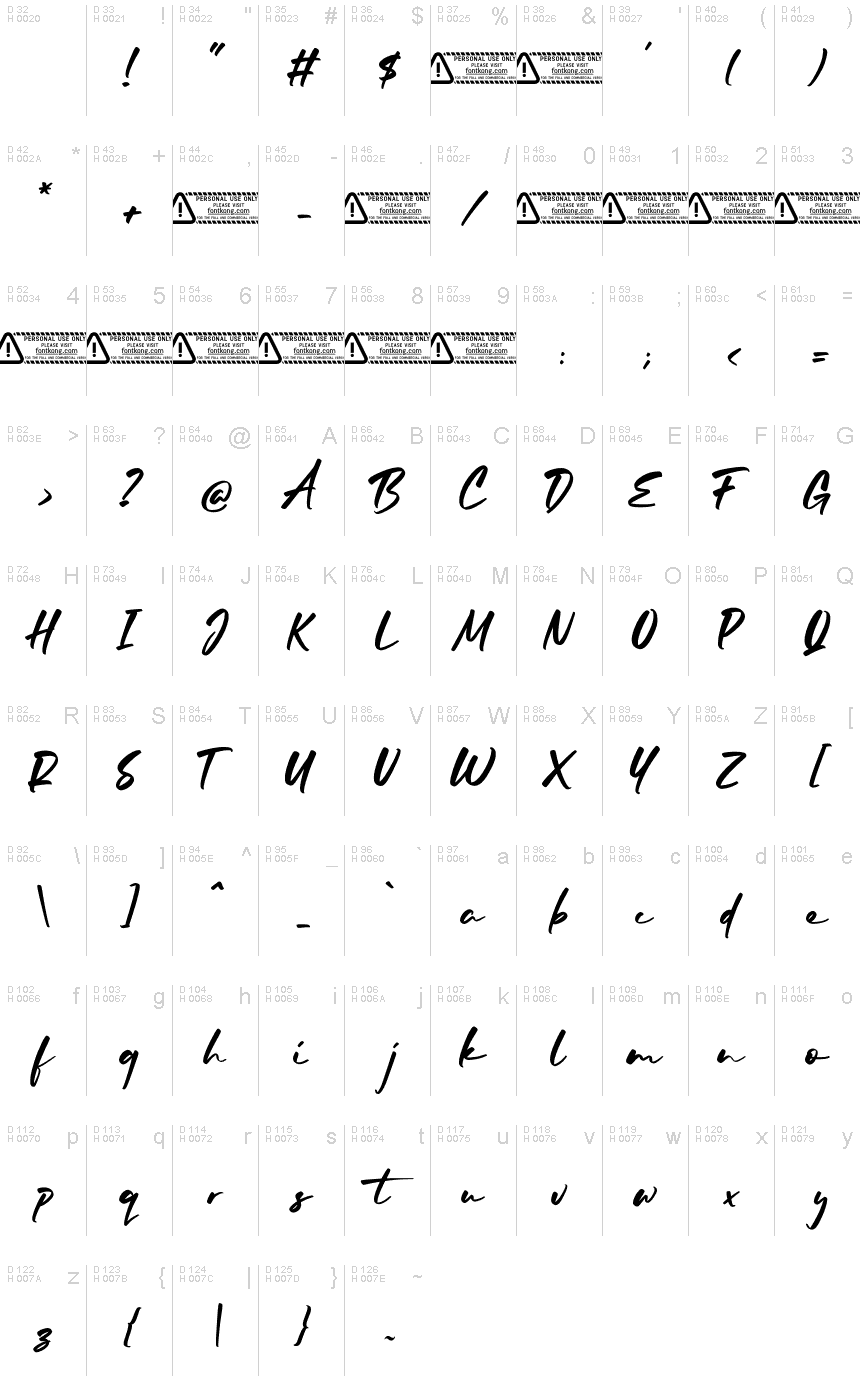
Mellodia
Meet Mellodia, the delightful creation by font designer Kong Font. With its charming handwritten style and semi-light weight, Mellodia is a versatile typeface perfect for a variety of projects. Its graceful curves and elegant strokes make it ideal for wedding invitations, feminine branding, and delicate product packaging. Whether you're designing a whimsical children's book or creating an enchanting logo for your spa retreat, Mellodia's uniqueness will captivate your audience. Embrace the mellifluous charm of Mellodia and add a touch of elegance to your next design endeavor.